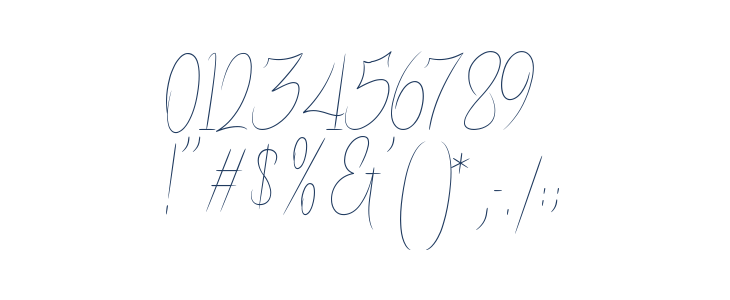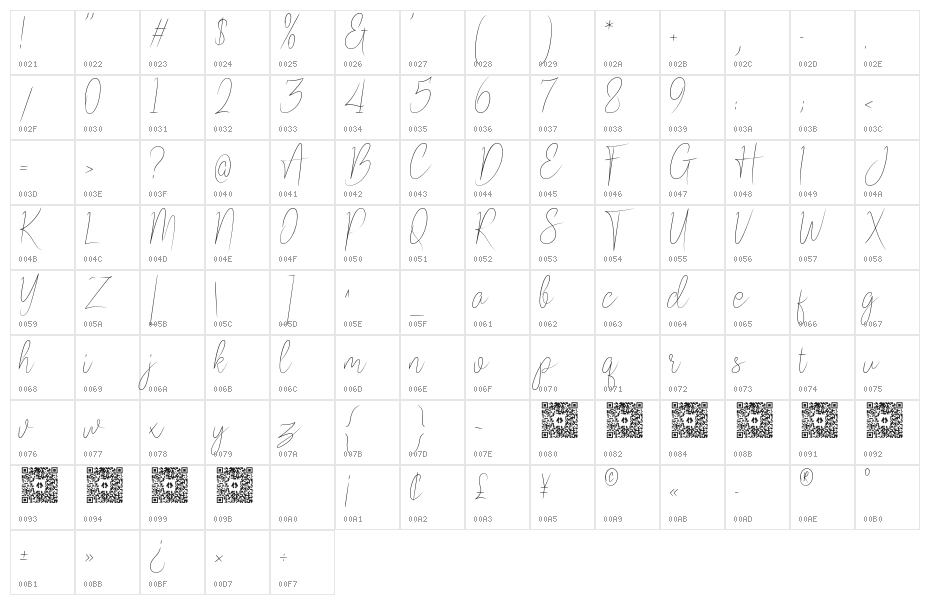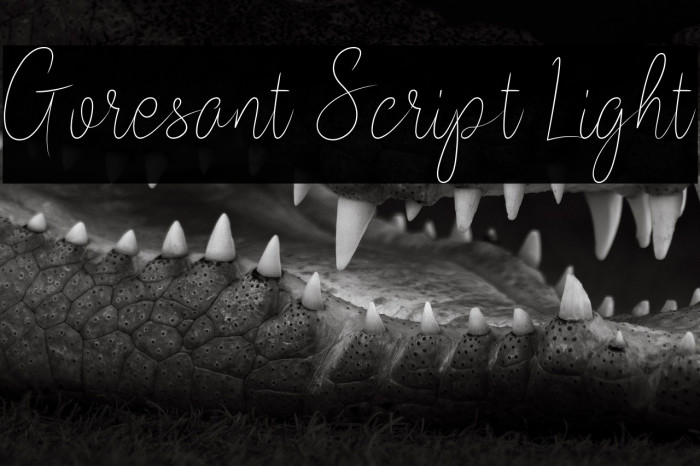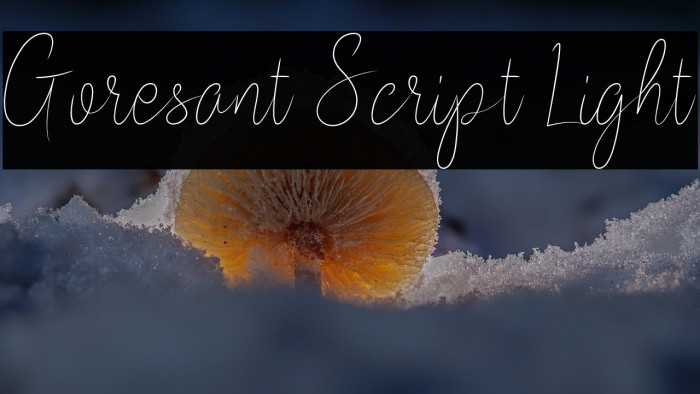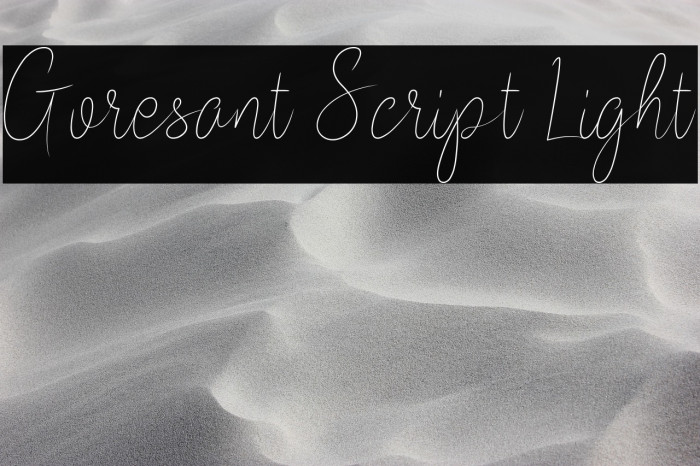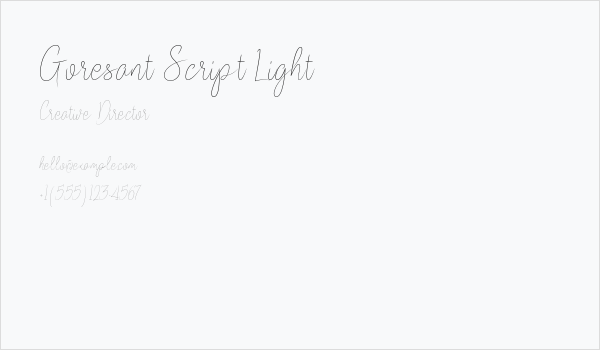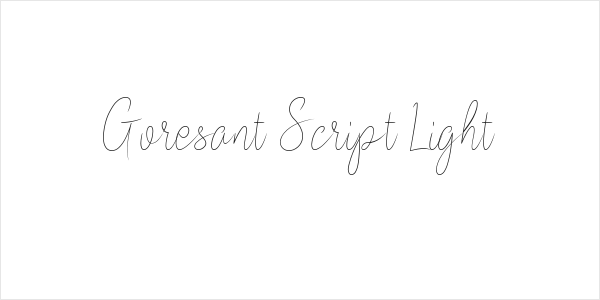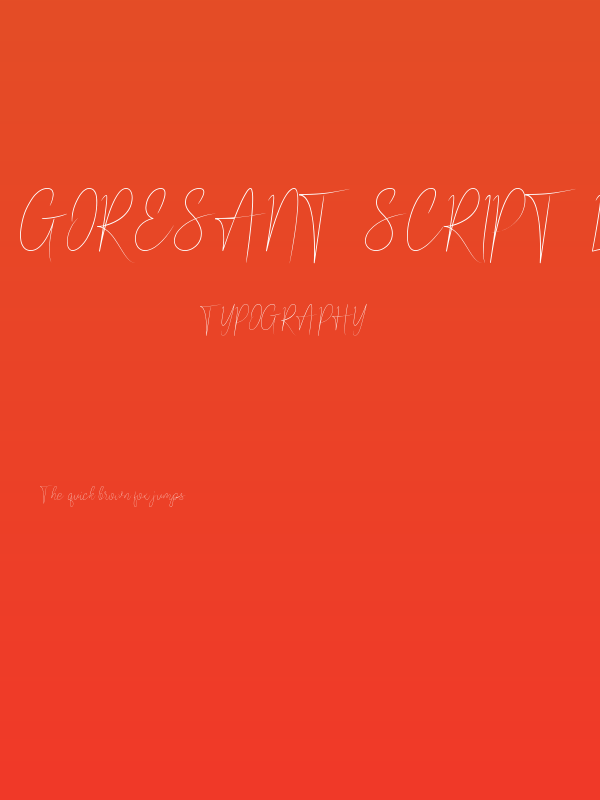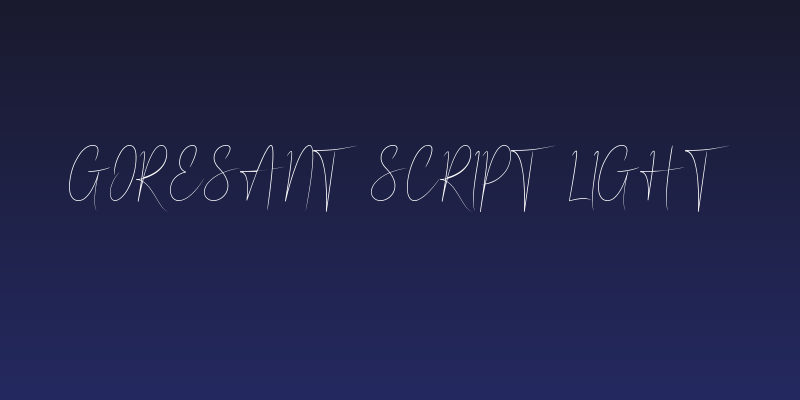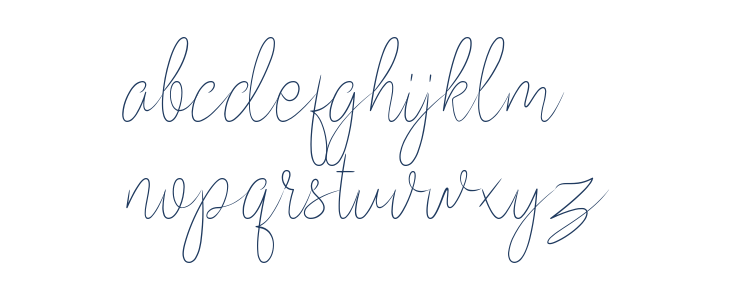
Goresant Script Light Font
Goresant Script Light Description
This font exudes elegance and fluidity, characterized by its thin, flowing strokes that mimic the natural motion of handwriting. The letters are connected in a seamless manner, creating a sense of continuity and grace. The uppercase letters are tall and slender, while the lowercase letters maintain a consistent flow with gentle curves and loops. The numerals are distinct yet harmonious with the overall script style, and the special characters add a touch of sophistication. This font is perfect for projects that require a personal, artistic touch, such as invitations, greeting cards, or branding materials.
| Overall Style | Elegant, Artistic |
| Use Case | Headlines, Invitations, Artistic projects |
| Proposed Projects | Ideal for wedding invitations, personal branding, greeting cards, and artistic projects. |